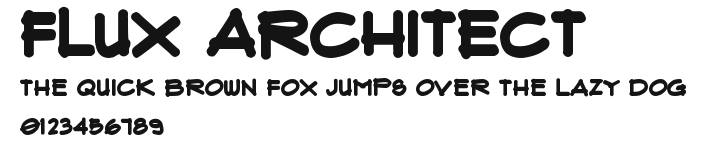
Flux Architect Preview
• Font Name: Flux Architect
• Font Style: Gras
• Full Font Name: Flux Architect Bold
About Flux Architect.ttf
Flux Architect.ttf is a modern, elegant sans-serif font designed for ultimate readability and visual harmony. Perfect for branding, headlines, web design, and print materials.